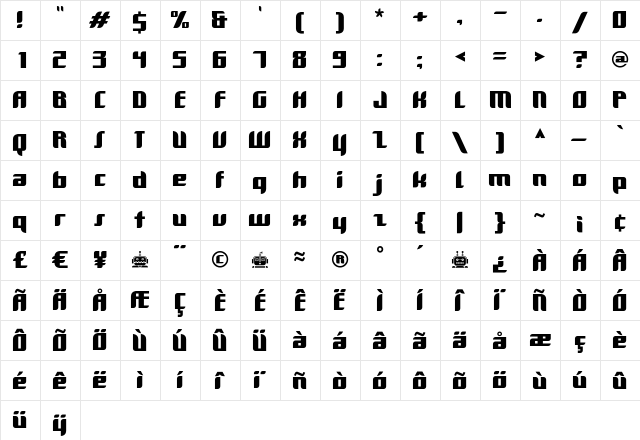
Dimentia Medium
Design Context for Dimentia Typeface
Dimentia is a composed and adaptable typeface that performs quietly and consistently across a wide range of design contexts.